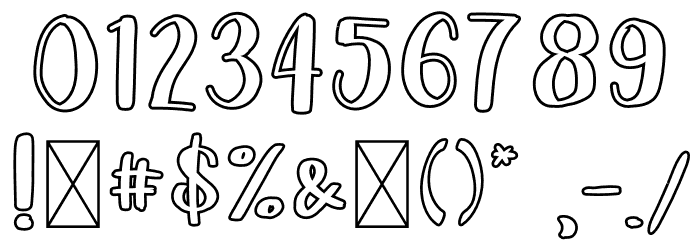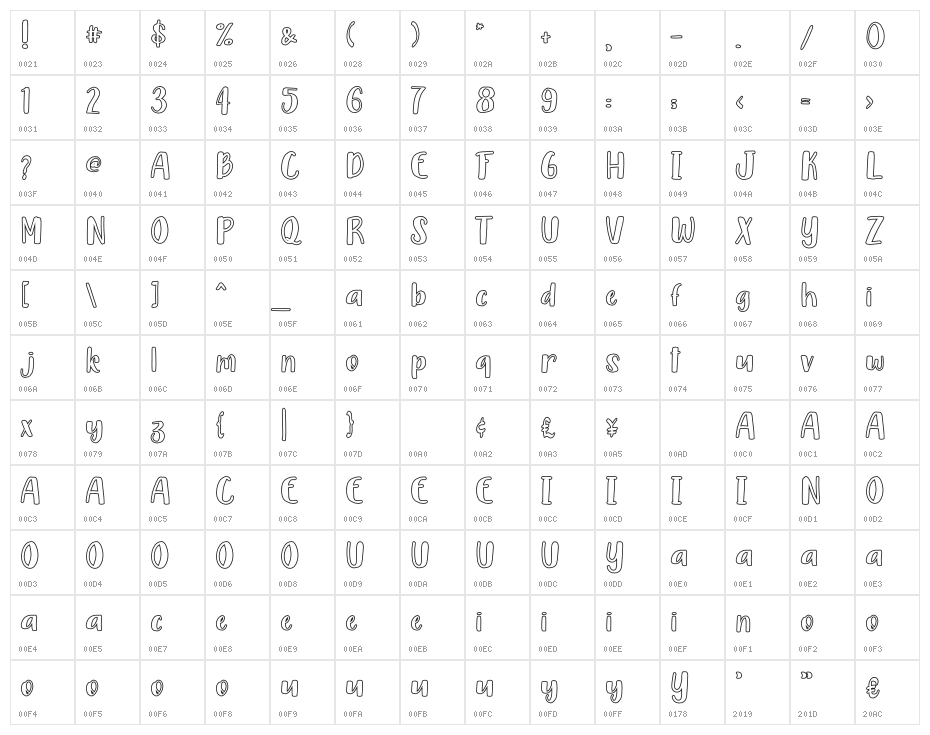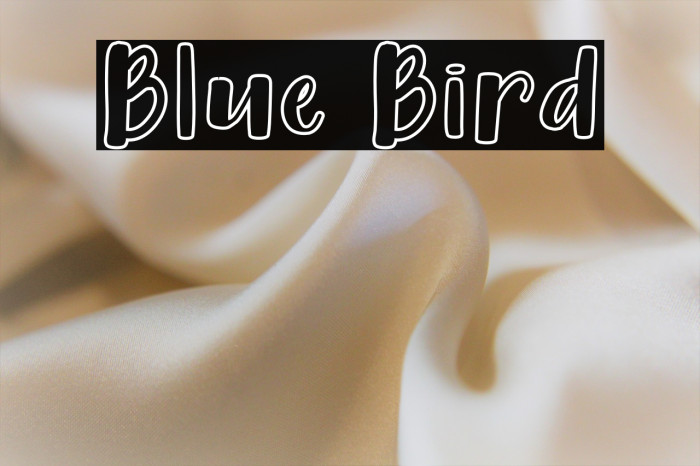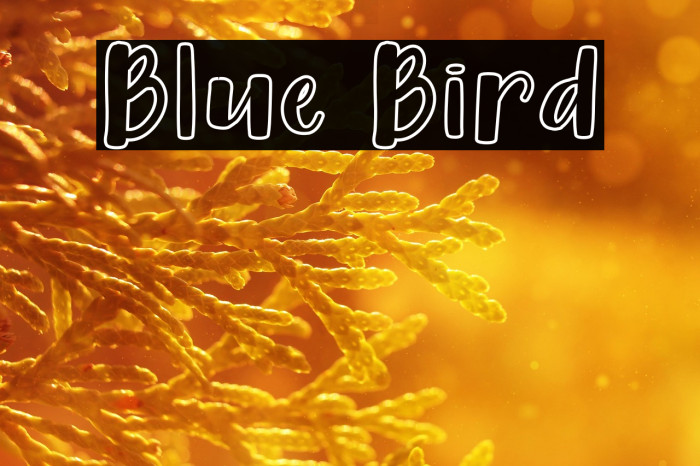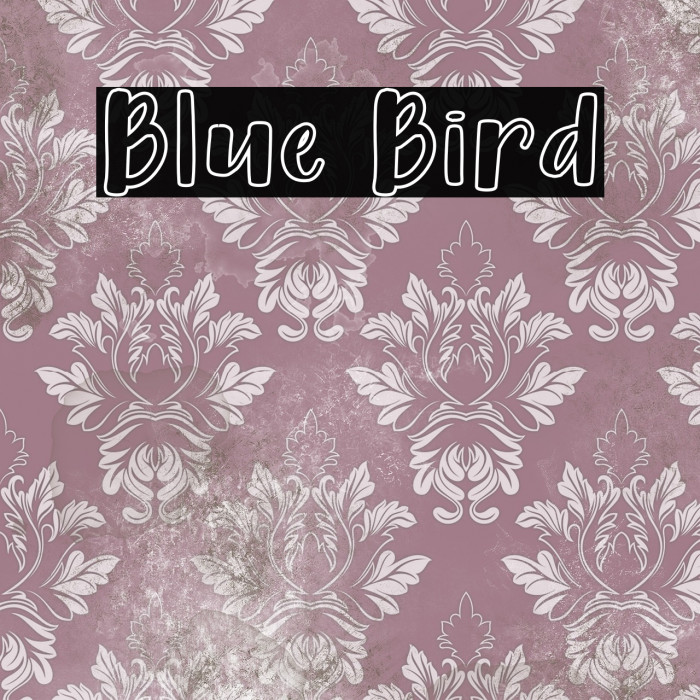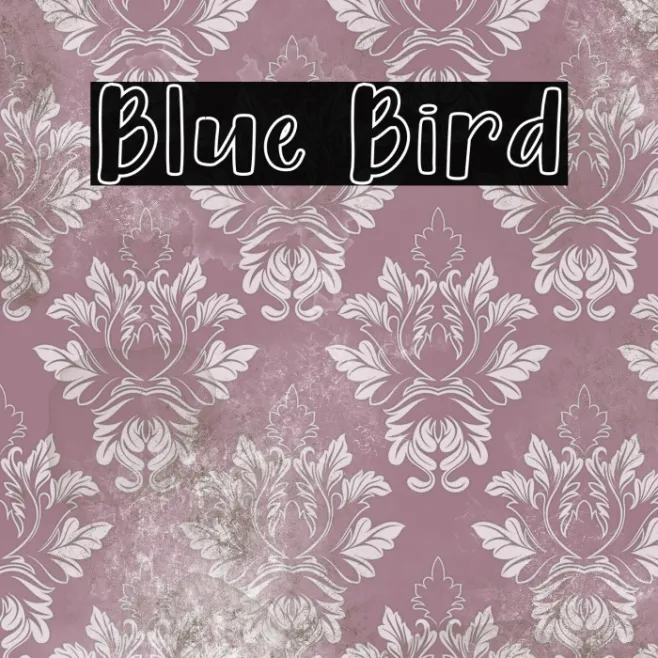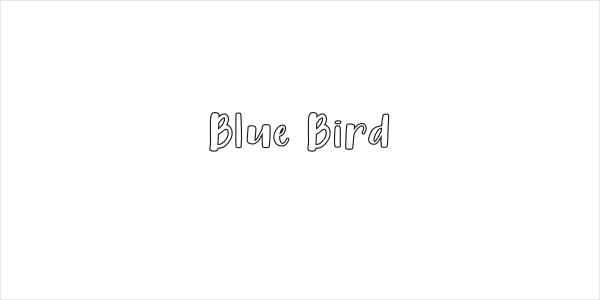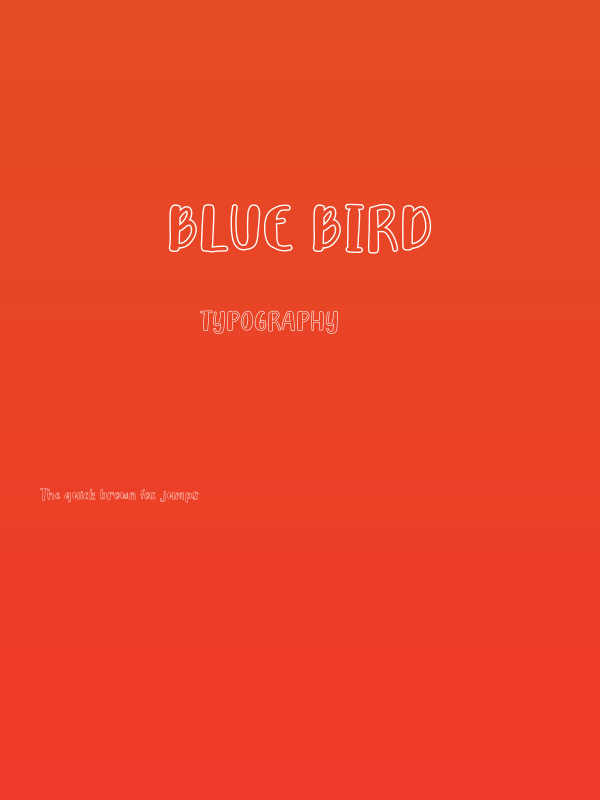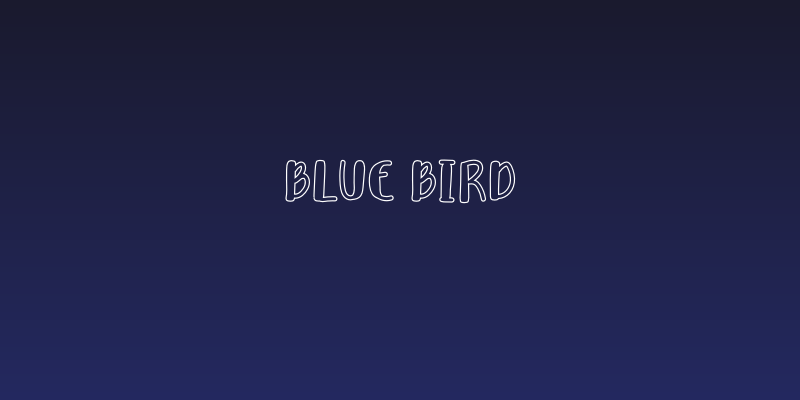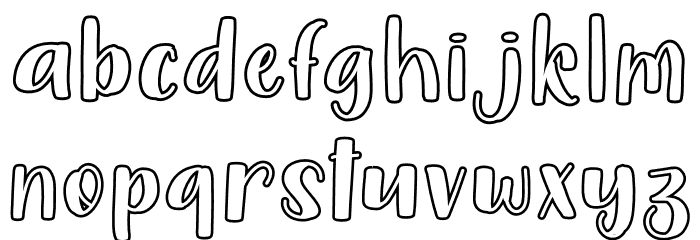
Blue Bird Font
Blue Bird Description
This playful and whimsical font features a hand-drawn, outlined style that exudes a casual and friendly vibe. The uppercase and lowercase letters are crafted with a consistent stroke width, giving them a uniform appearance while maintaining a lively character. The numerals and special characters follow the same design principles, ensuring a cohesive look across all elements. The font's rounded edges and slightly irregular lines add to its charm, making it ideal for projects that require a touch of personality and warmth.
| Proposed Projects | Perfect for children's books, playful branding, greeting cards, and DIY projects. |